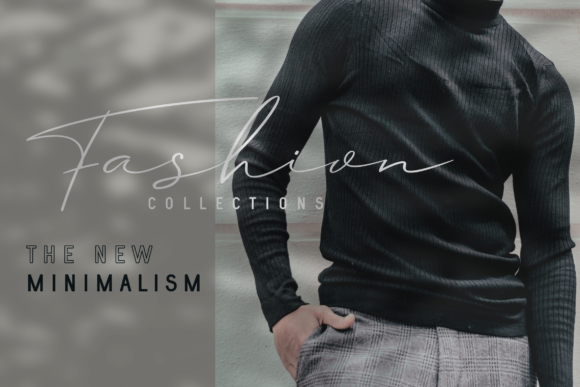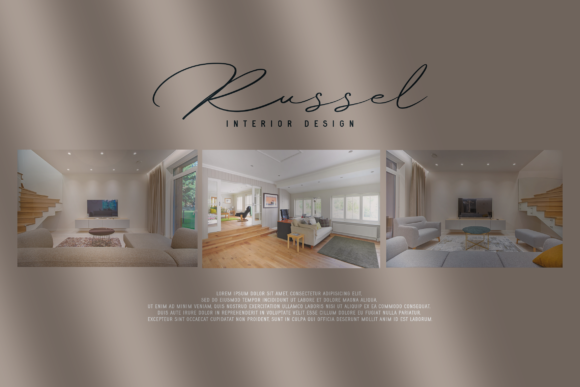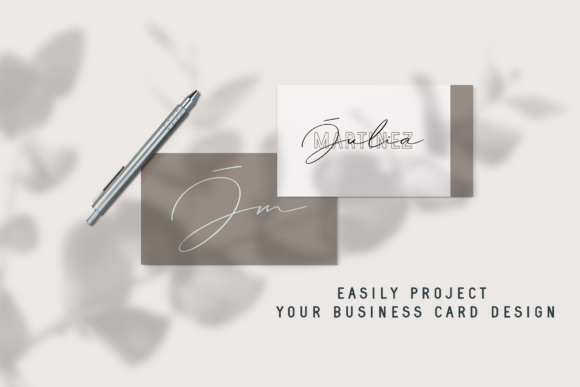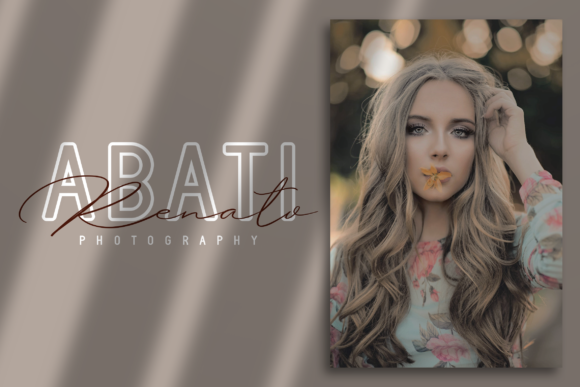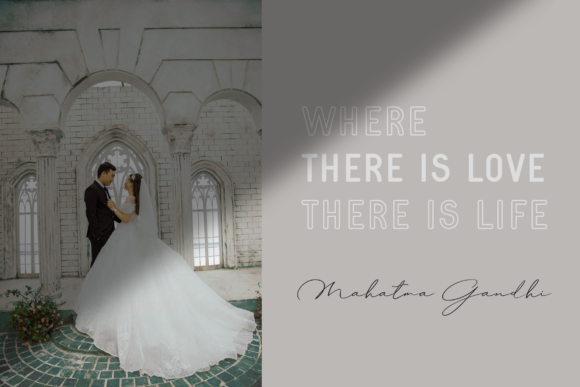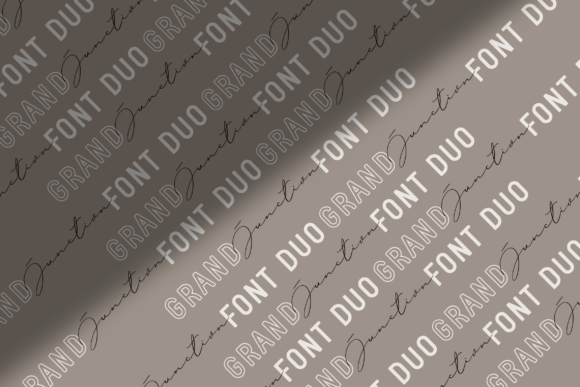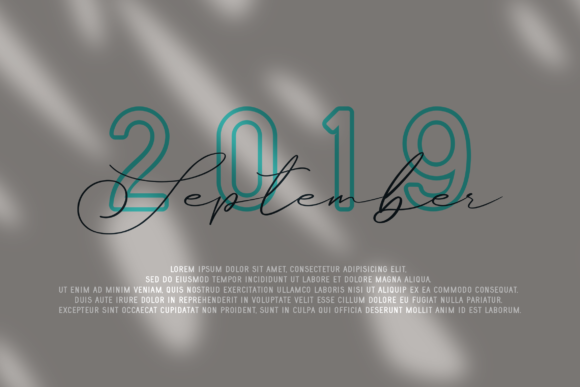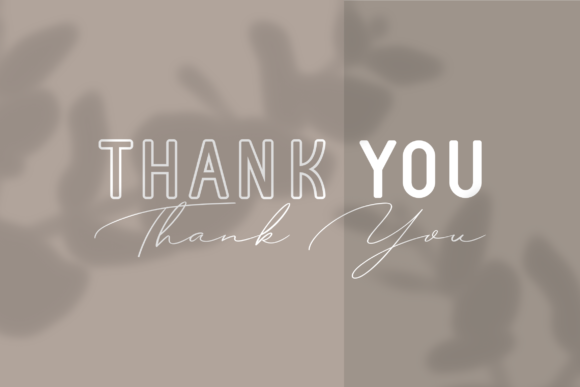
HomeScript FontsGrand Junction Duo Font Script Fonts Grand Junction Duo Font FacebookXPinterestWhatsApp Grand Junction Duo Font Poster 2 Grand Junction Duo Font Poster 3 Grand Junction Duo Font Poster 4 Grand Junction Duo Font Poster 5 Grand Junction Duo Font Poster 6 Grand Junction Duo Font Poster 7 Grand Junction Duo Font Poster 8 Grand Junction Duo Font Poster 9 About Grand Junction Duo Font Grand Junction is a modern, elegant, and stylish font duo. Get inspired by its bold character! DOWNLOAD NOW People also explored Brizlish Font Cowboyslang Flatelegant Font Afino Font Luca Noah Font Janda Font Denver Font Martinail Font Andrea Roft Font 426 0 TagsGrand Junction Duo Font Previous articleWeekdays Santtuy FontNext articleMayashi Font LEAVE A REPLY Cancel reply Comment: Please enter your comment! Name:* Please enter your name here Email:* You have entered an incorrect email address! Please enter your email address here Website: Save my name, email, and website in this browser for the next time I comment. Personal Use Free Hello Sarrah Personal Use Free Read more about this font Panaroe Personal Use Free Read more about this font Groomer Personal Use Free Read more about this font Folgore Personal Use Free Read more about this font BLOG Using Fonts in Digital Marketing: Tips to Strengthen Your Brand Identity In the realm of digital marketing, every visual element plays a crucial role in shaping a brand's identity, and fonts are no exception. The... To increase your work productivity, choose the most readable fonts. Best Fonts for T-Shirt Design – Top 2025 Picks The 10 Best Handwriting Fonts to Add Personality to Your Designs